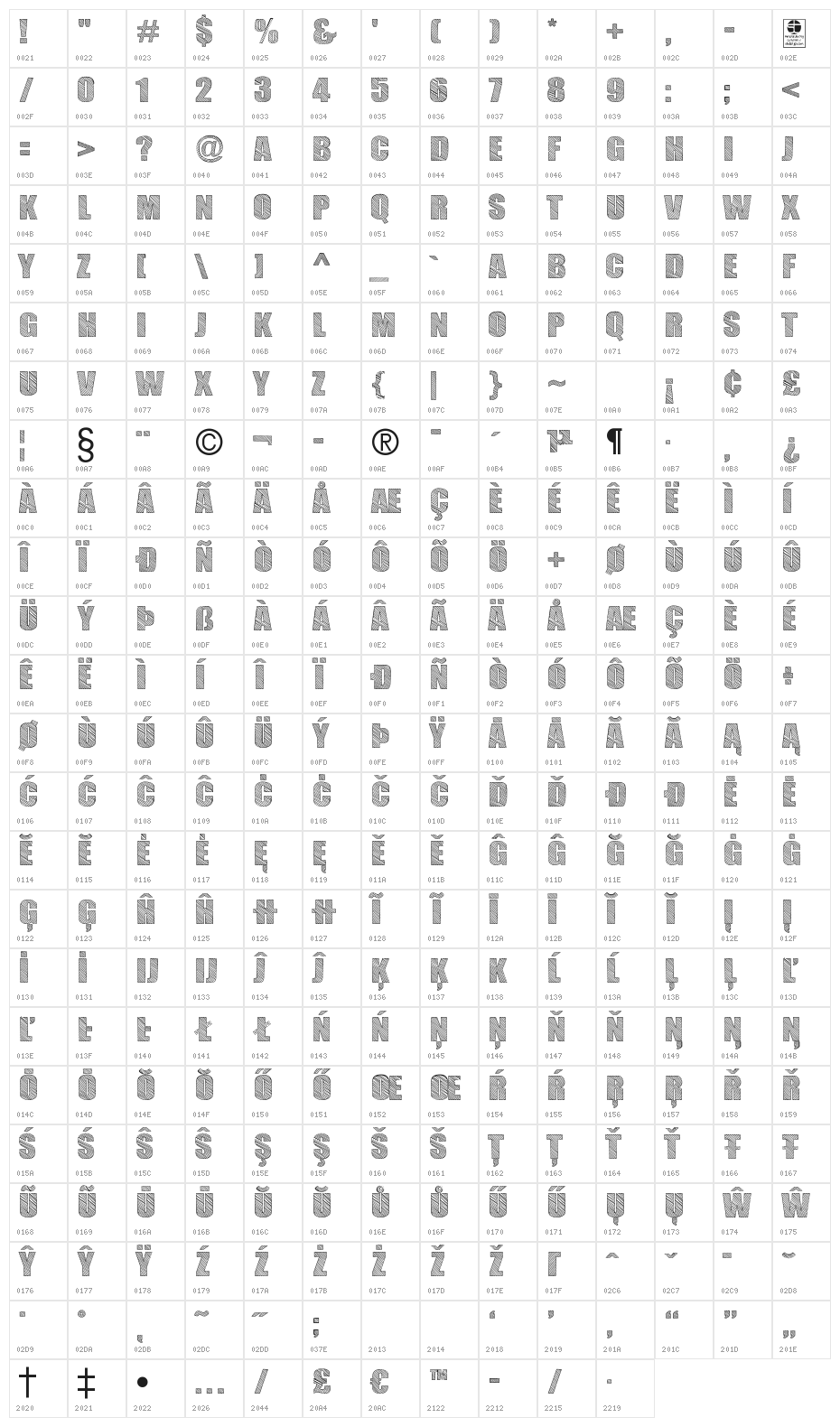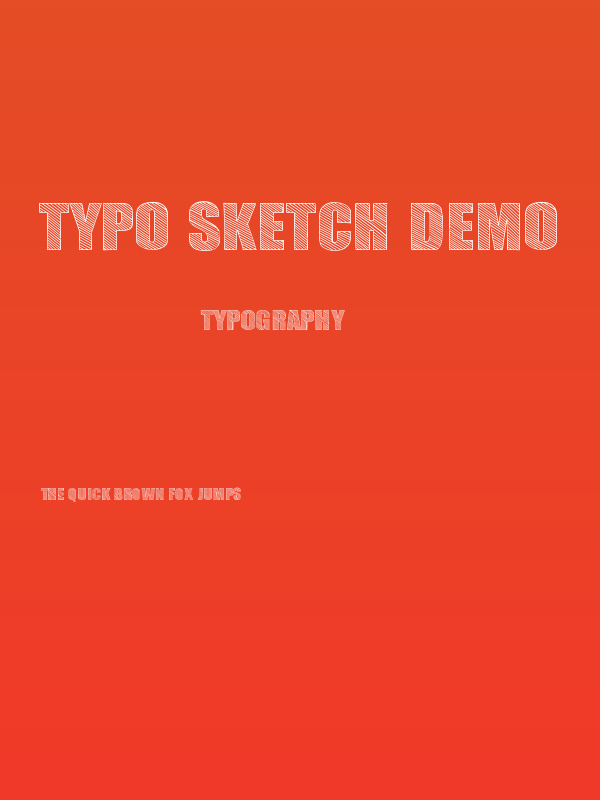
TYPO SKETCH DEMO Font
TYPO SKETCH DEMO Description
This font features a bold, sketch-like design with diagonal hatching filling each character. The uppercase and lowercase letters, along with numbers and special characters, maintain a consistent style that emphasizes a hand-drawn aesthetic. The strokes are uniform in width, creating a cohesive look across all characters. The font's playful and artistic nature makes it suitable for creative projects, adding a unique touch to any design. Its decorative style is eye-catching, making it ideal for headlines or titles that require a distinctive appearance.
| Proposed Projects | Ideal for posters, artistic designs, branding, and any project requiring a creative and unique typeface. |